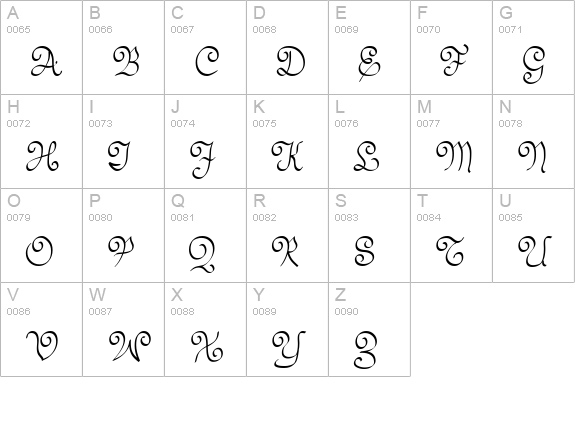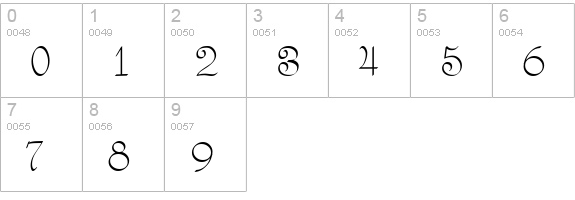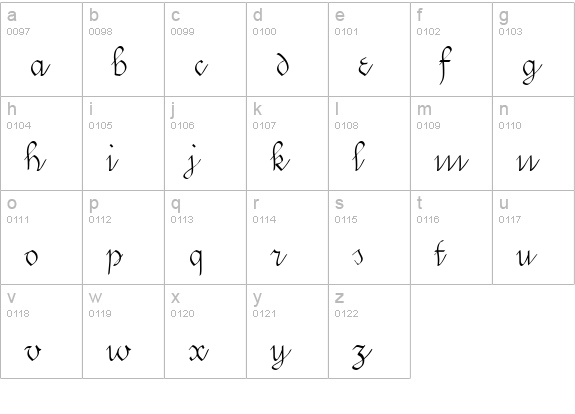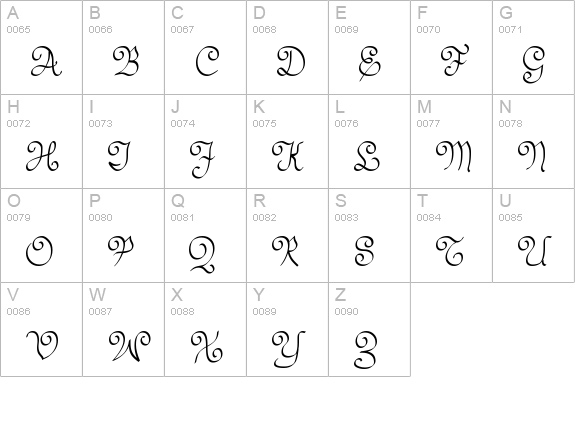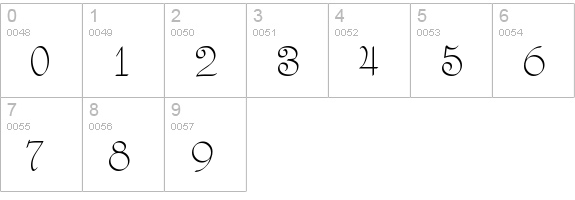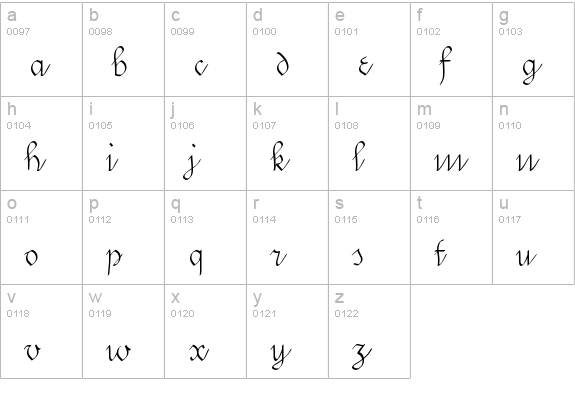
Swirlity Font Details
Swirlity font is a whimsical and elegant typeface that brings a touch of sophistication to any design project. With its graceful swirls and delicate lines, Swirlity exudes a sense of charm and beauty that will captivate your audience. Whether you're working on wedding invitations, branding materials, or social media graphics, this font will add a luxurious feel to your work. The best part? Swirlity font is completely free to download at FontsMarket.com. You can easily access this stunning typeface and elevate your designs without spending a dime. Don't miss out on the opportunity to enhance your projects with the magic of Swirlity font. Download it today and let your creativity soar!